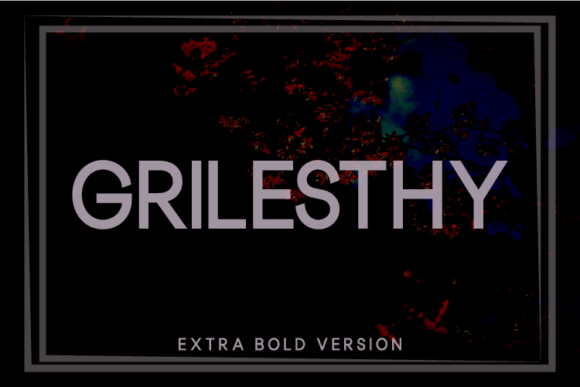
Grilesthy Extra Bold Font, a captivating sans serif font, adds charm and elegance to your designs. Its versatility allows it to effortlessly elevate headlines and enhance the readability of text blocks. Experience a font that exudes friendliness and enchants your audience with its alluring curves and subtle yet impactful presence.
With 10 distinct weights, Grilesthy empowers you to seamlessly adapt it to the unique demands of your project. Unleash your creativity and let this font's versatility become the canvas upon which your ideas dance.
Grilesthy's Extra Bold weight commands attention, making it the perfect choice for impactful headlines that leave a lasting impression. Its bold strokes exude confidence and sophistication, ensuring your message is delivered with style and clarity.
Indulge in the charm of Grilesthy Extra Bold Font, where legibility and aesthetics intertwine to create a masterpiece. Elevate your designs, captivate your audience, and let your words shine with a font that speaks volumes.